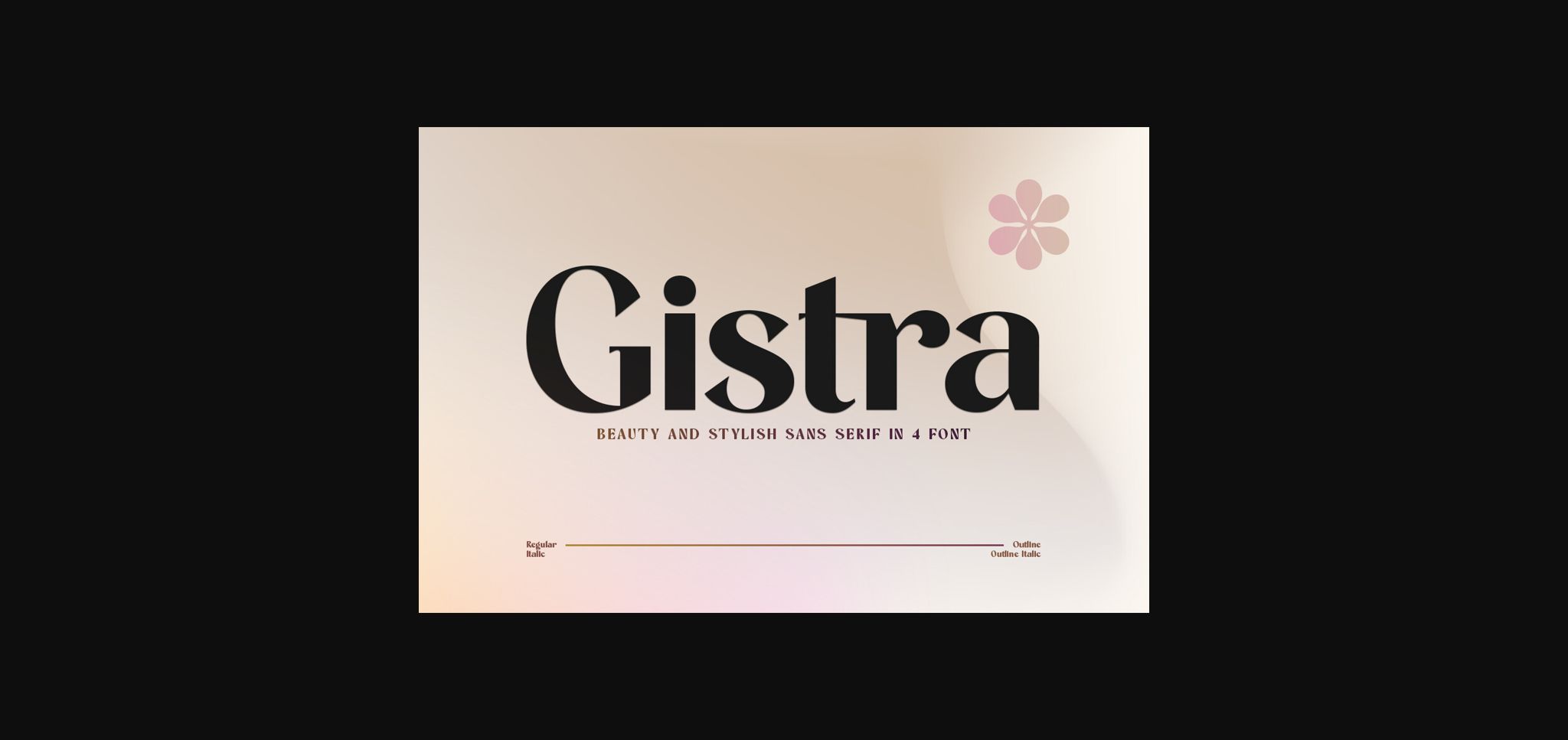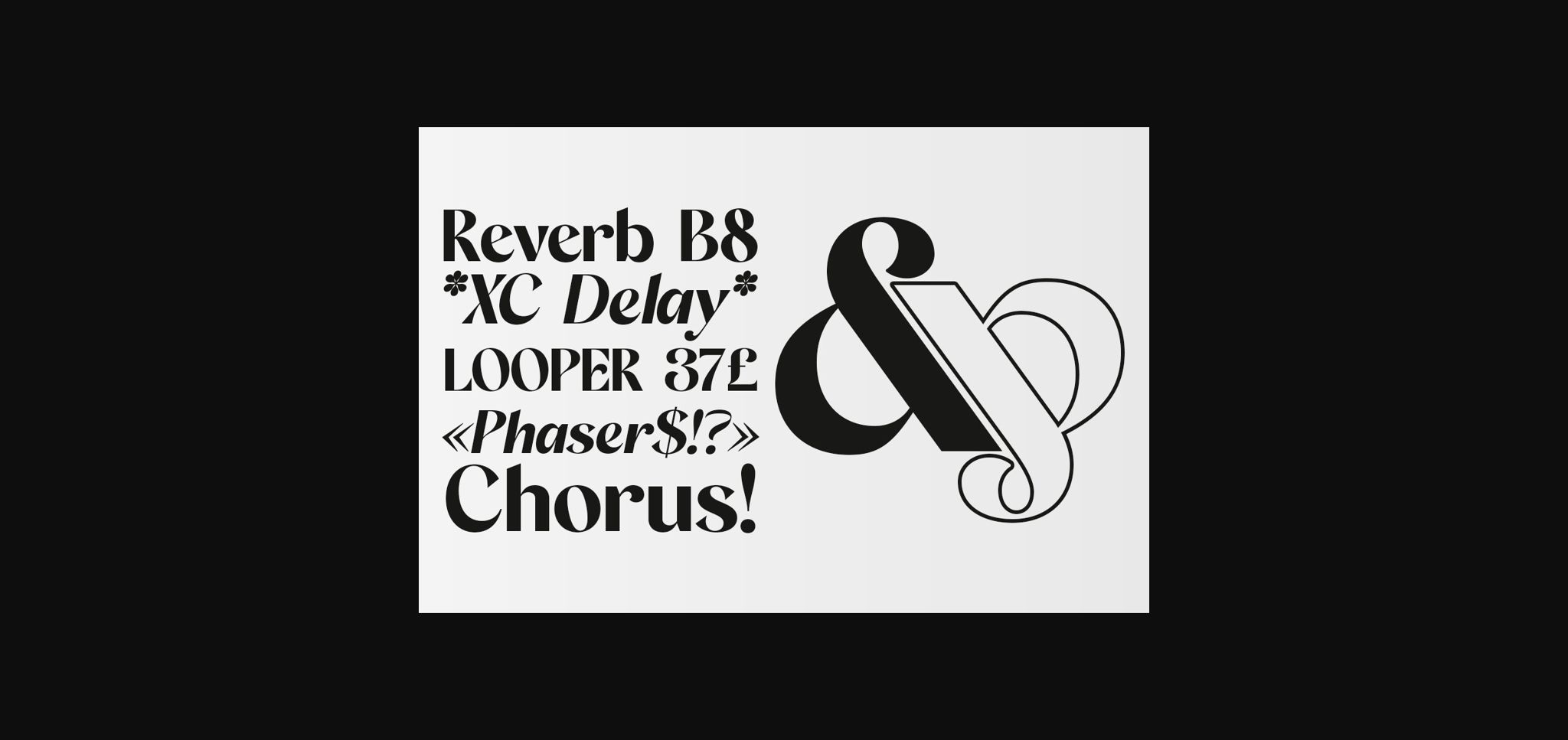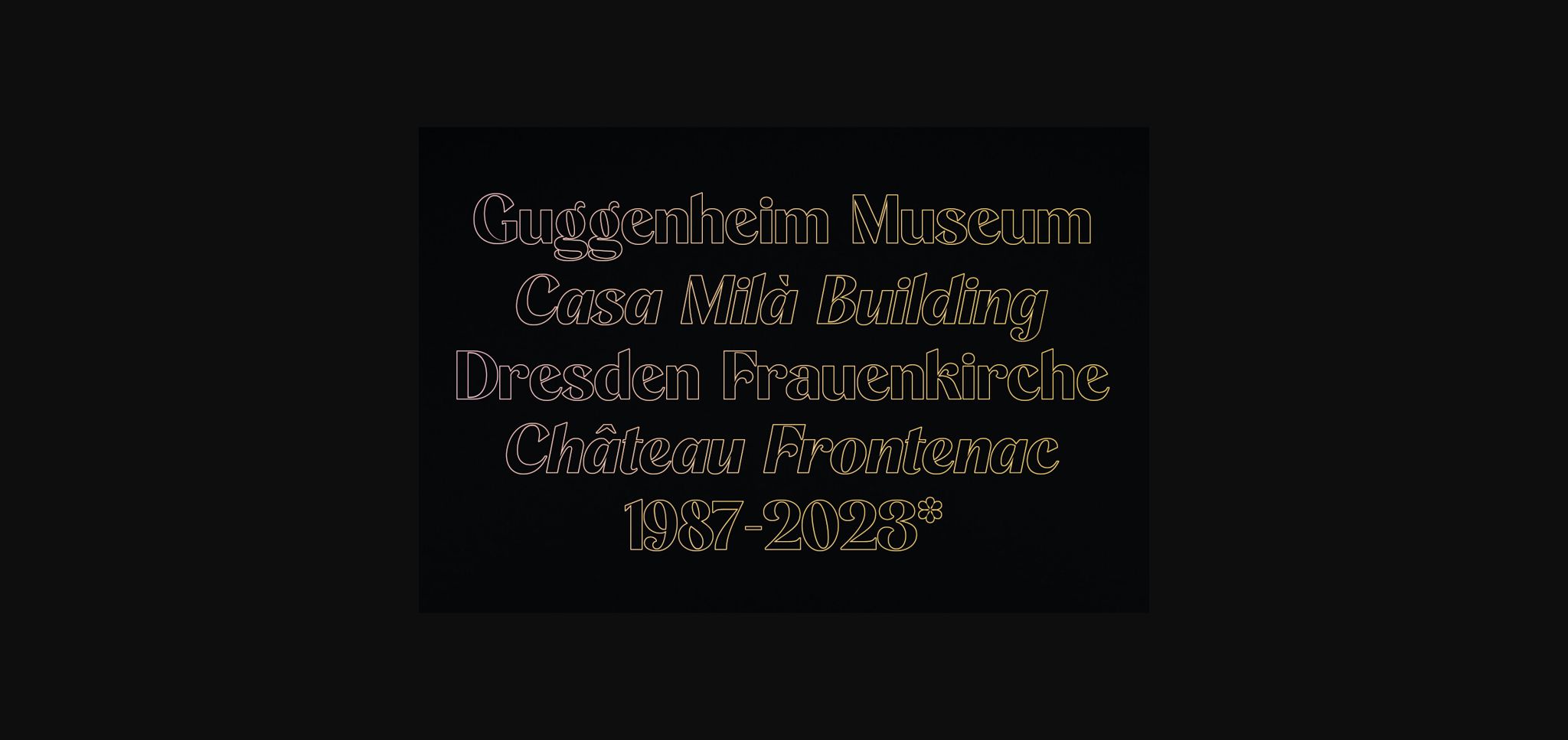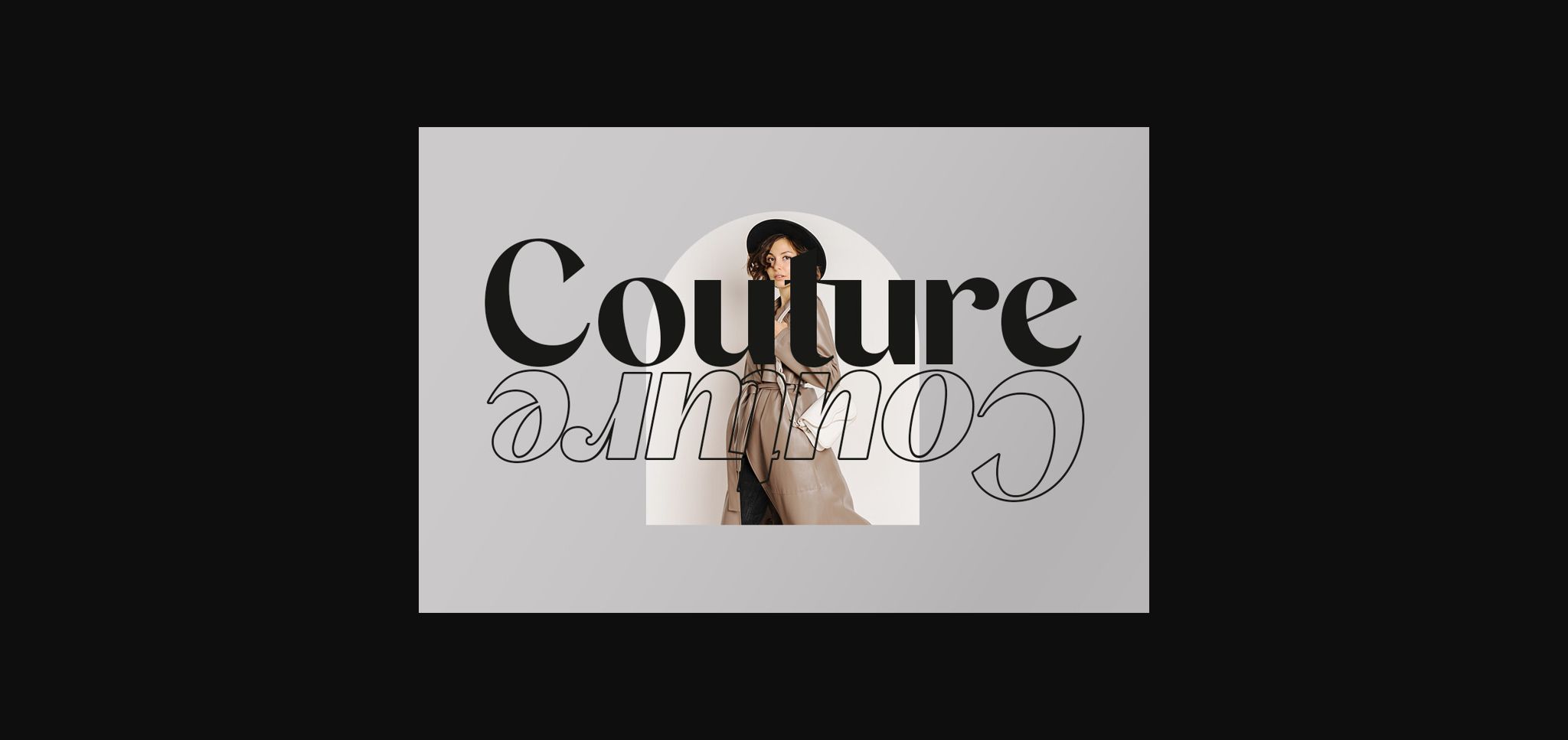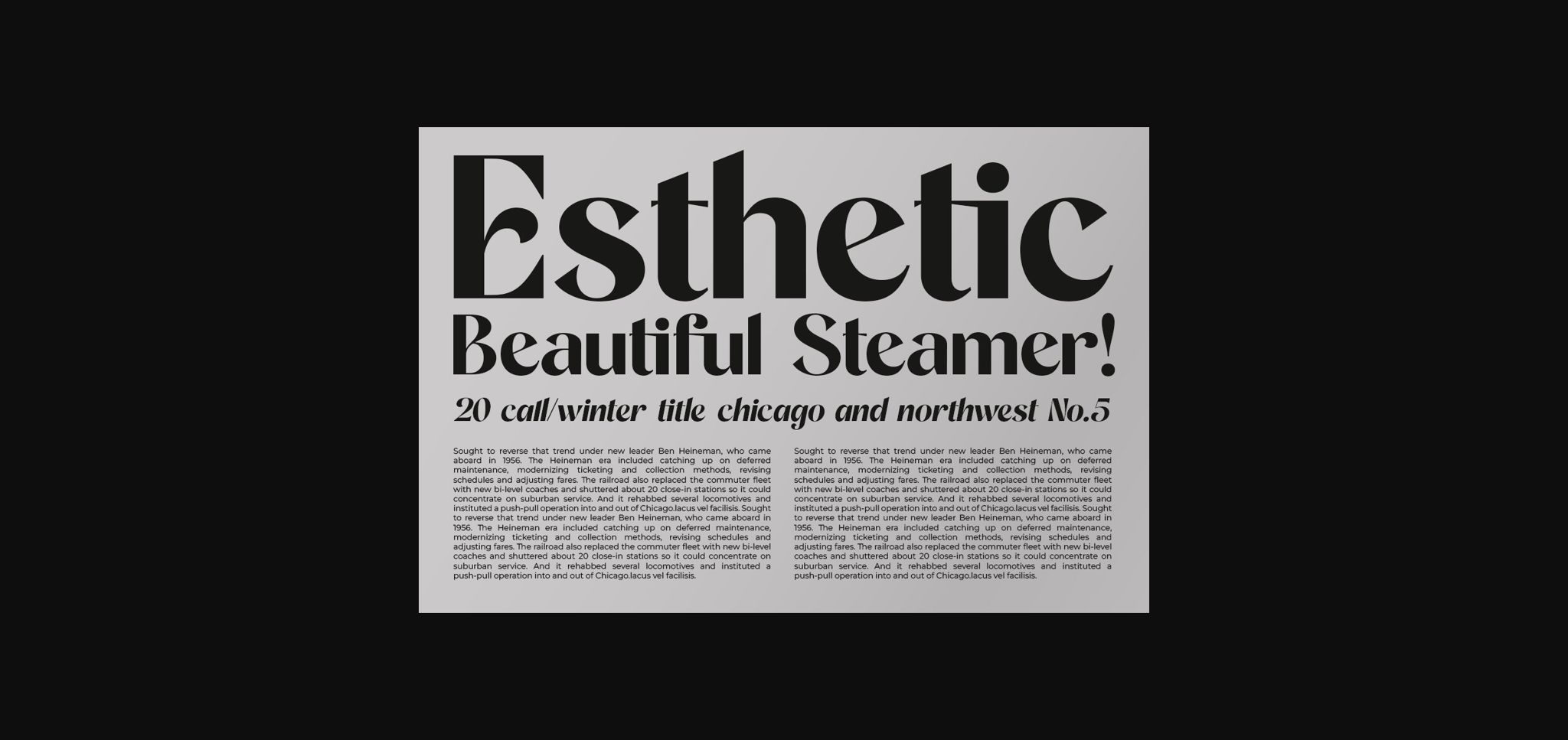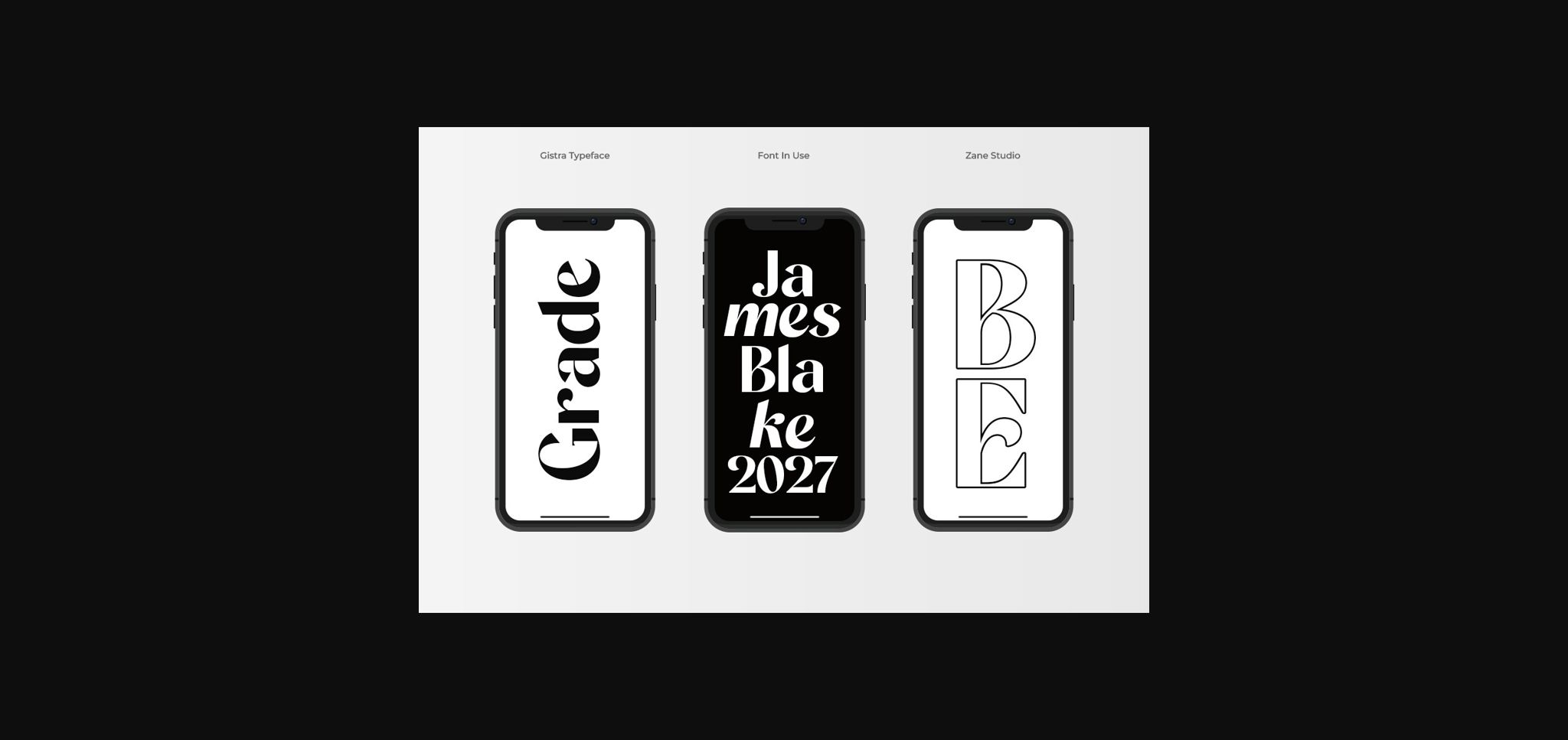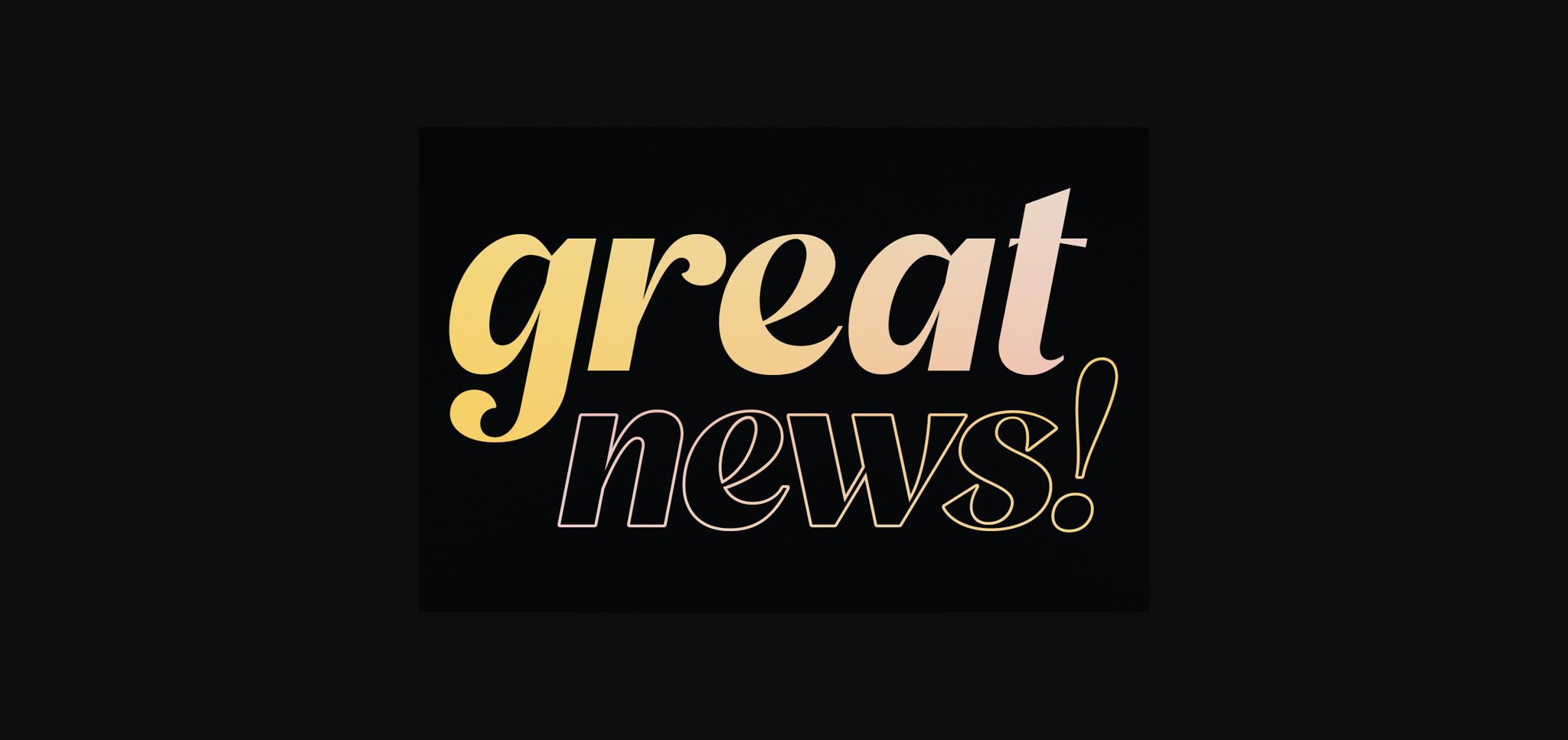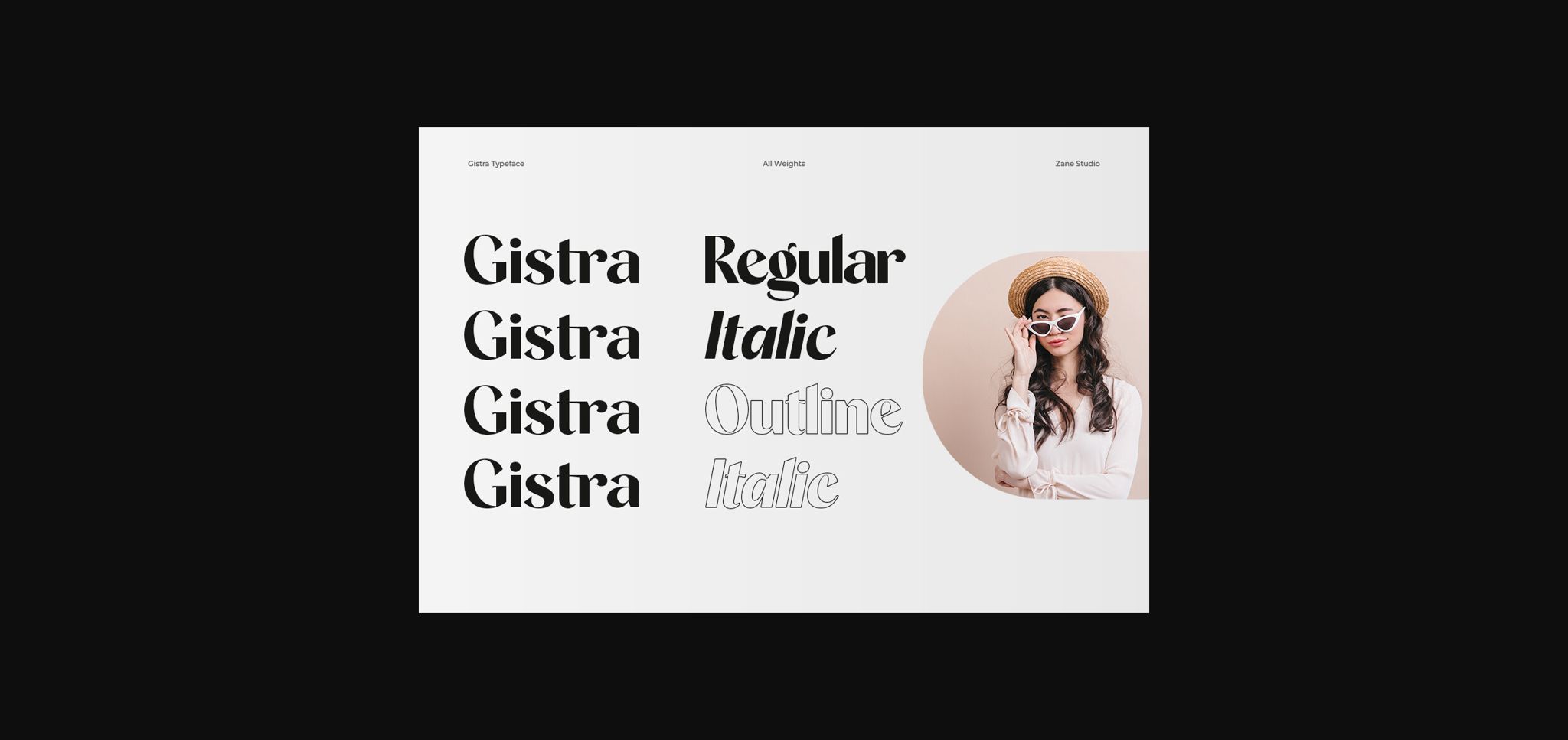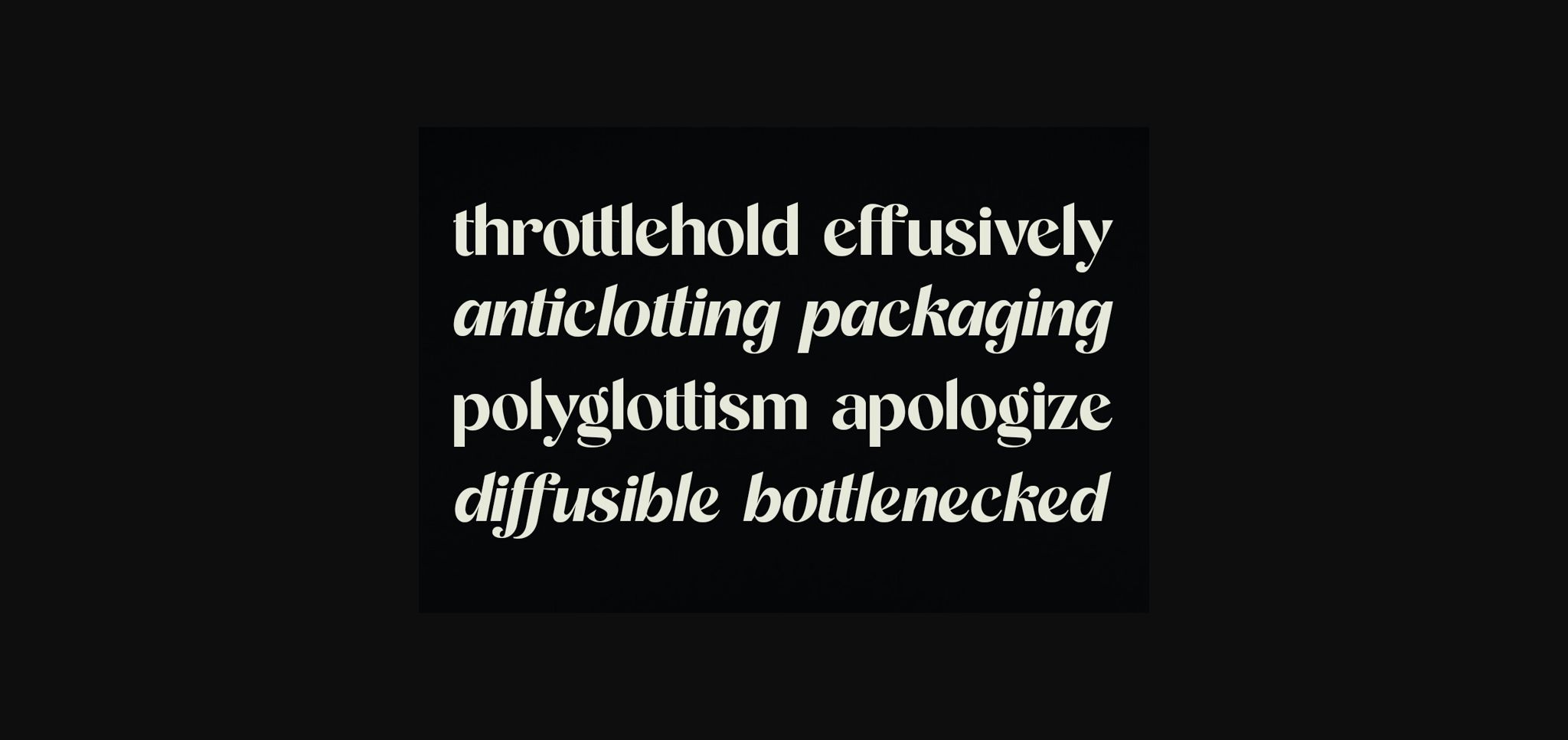
Gistra Font
About Gistra Font
Gistra – Modern Beauty Elegant Aesthetic Sans Serif
Expressive Feminine Branding Logo Font
It’s perfect for your upcoming project. Such as luxury logos and branding, classy editorial designs, women’s magazines, cosmetic brands, fashion promotions, art gallery branding, museums, architectural history, boutique branding, stationery design, blog design, modern advertising design, invitation cards, art quotes, home decoration, book titles/samples, special events, and more.